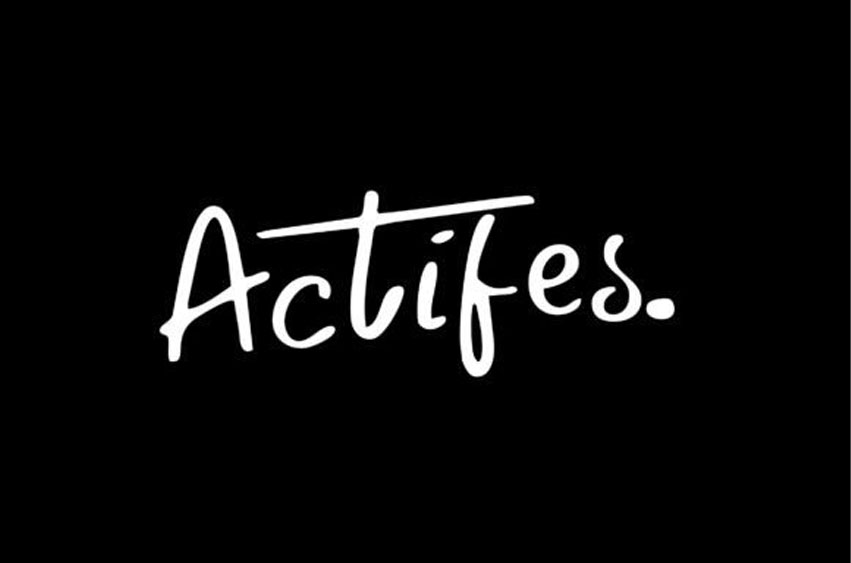
Actifes Font is a script font with a handwriting style that will bring a unique feel to each word.
Actifes can be used in any work, such as wedding invitations, posters, advertisements, social media content, logos, and many more.